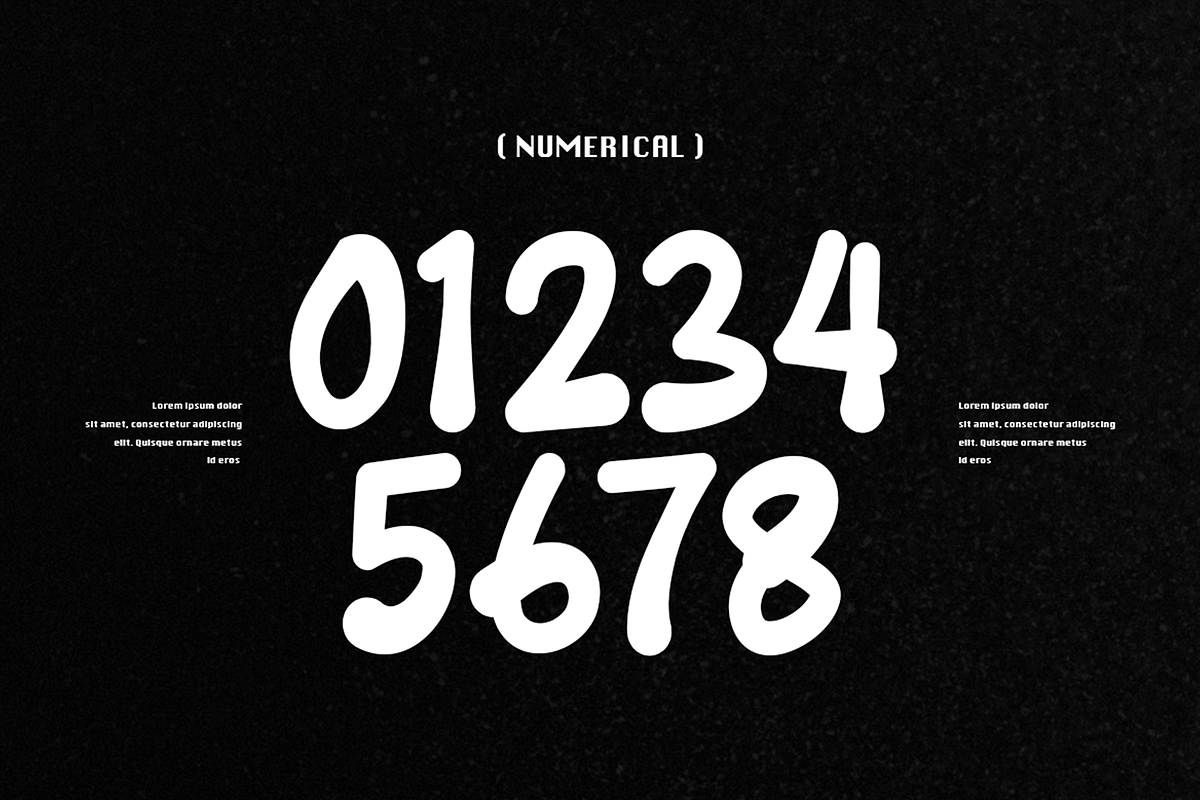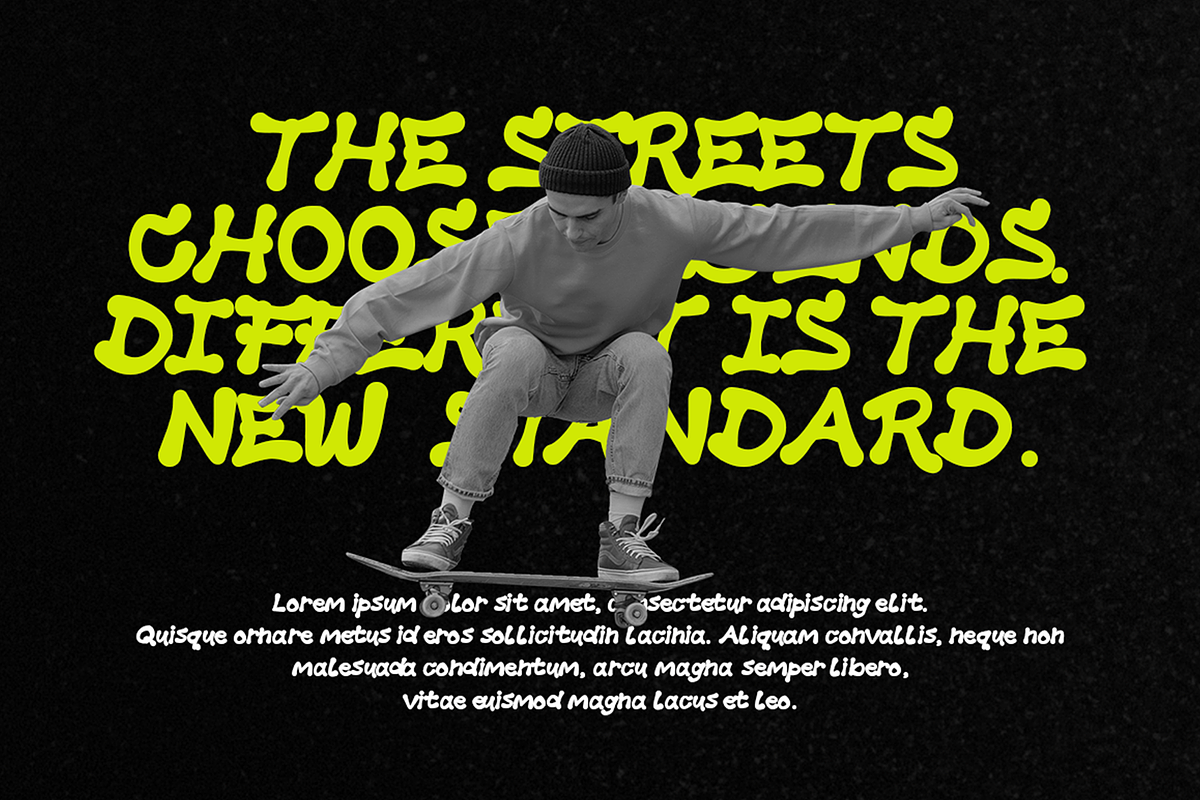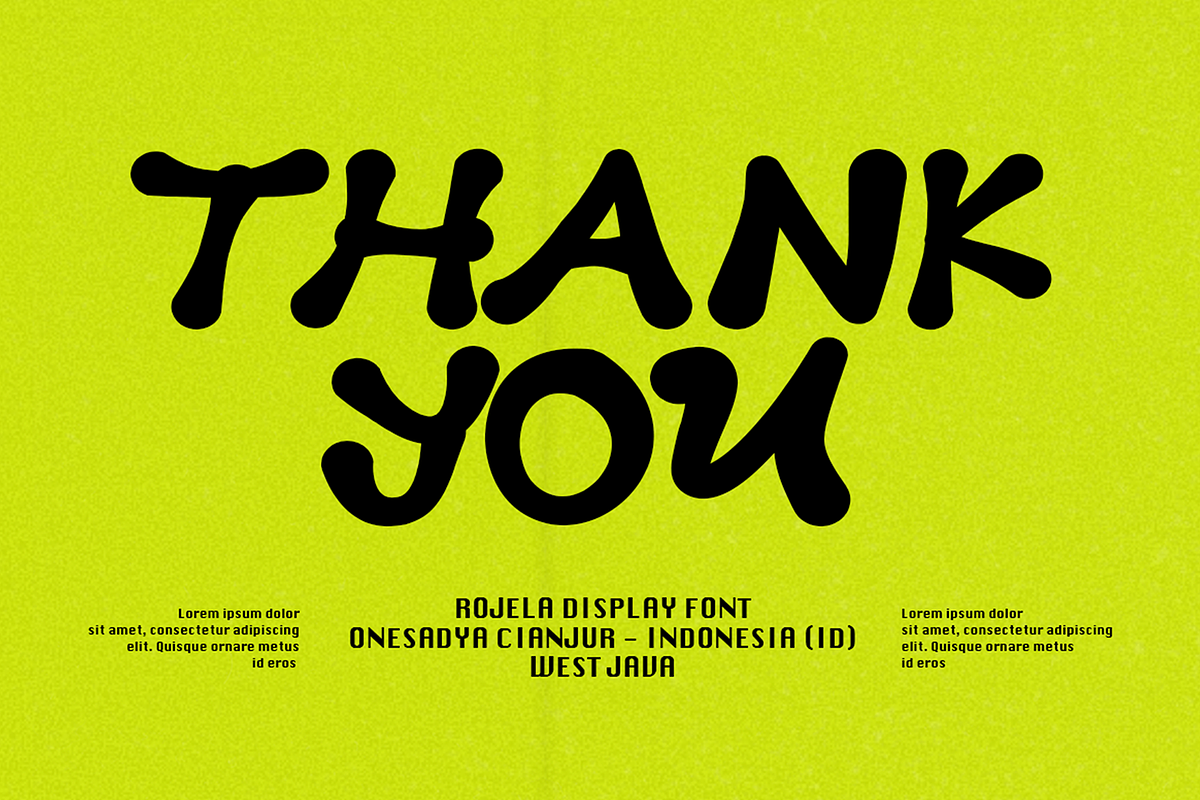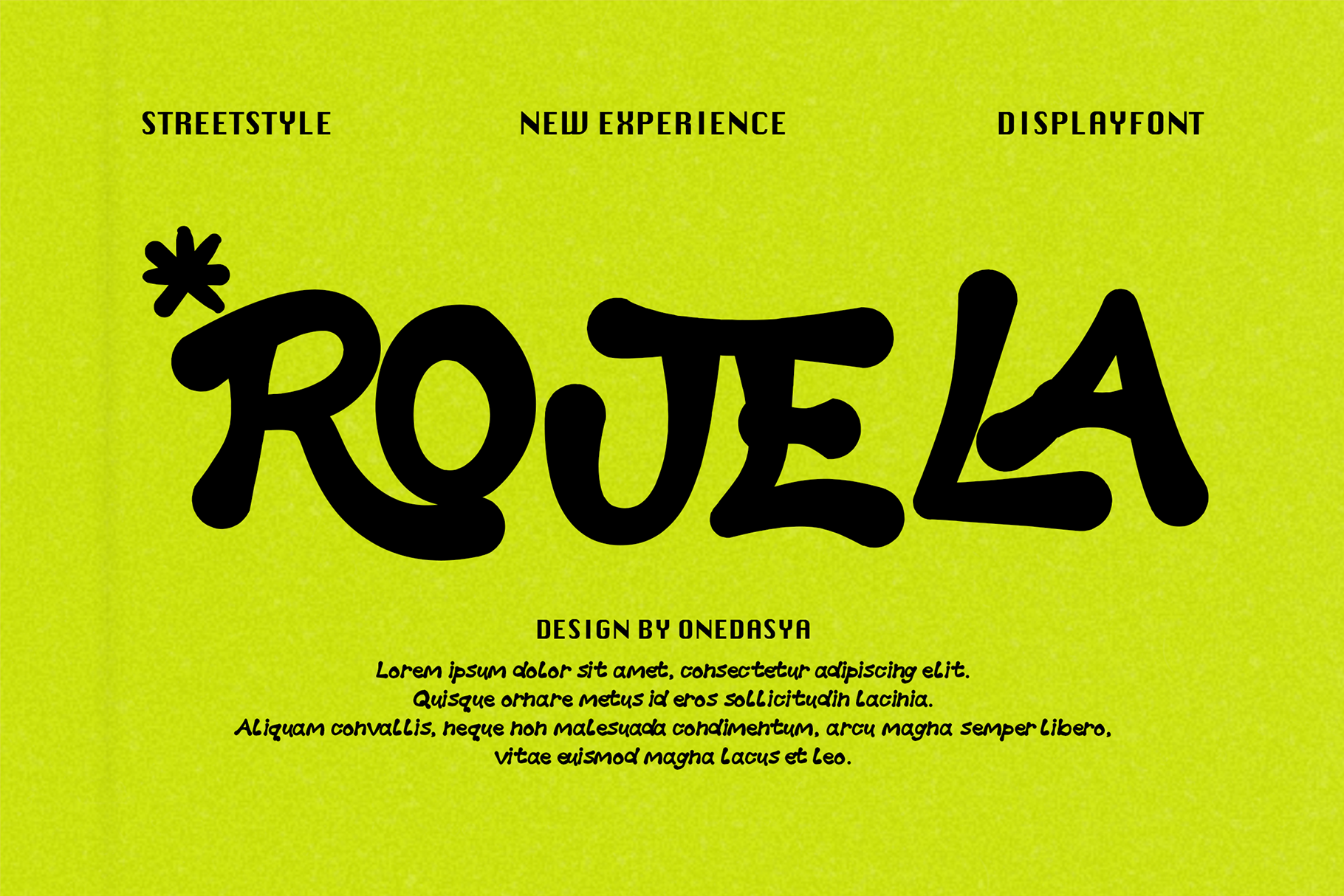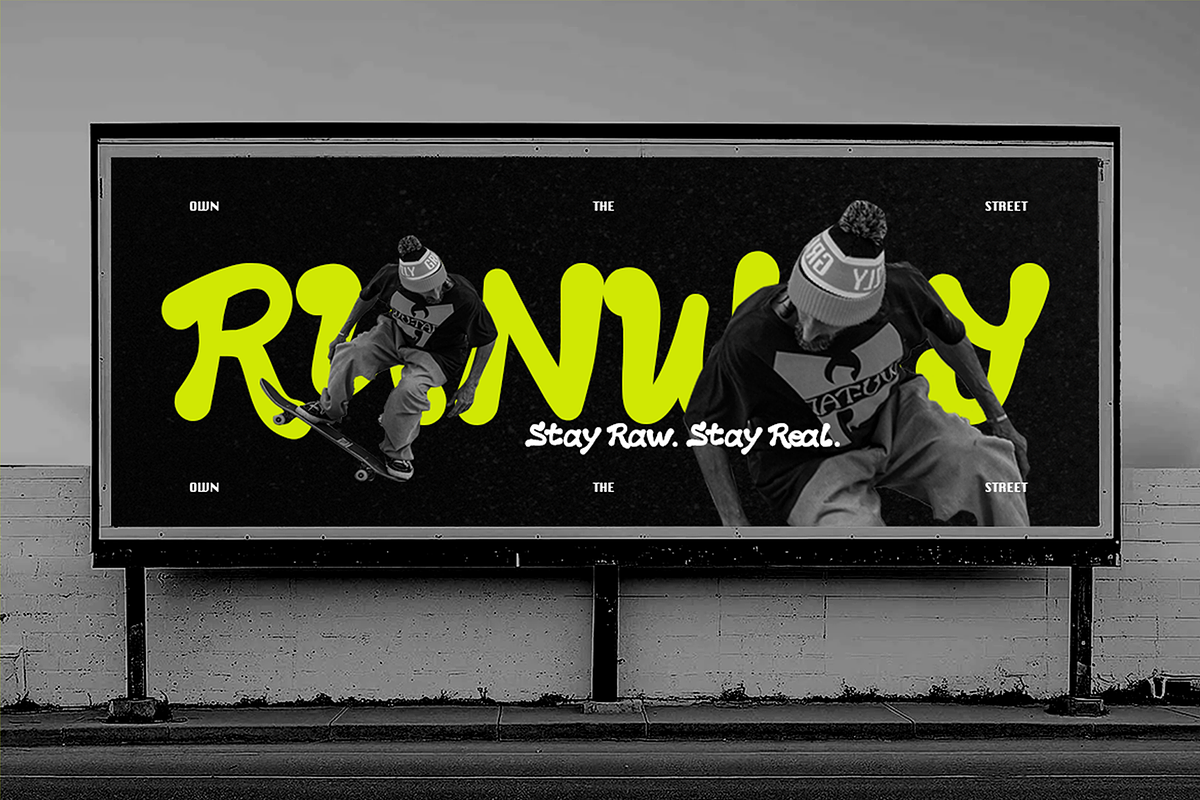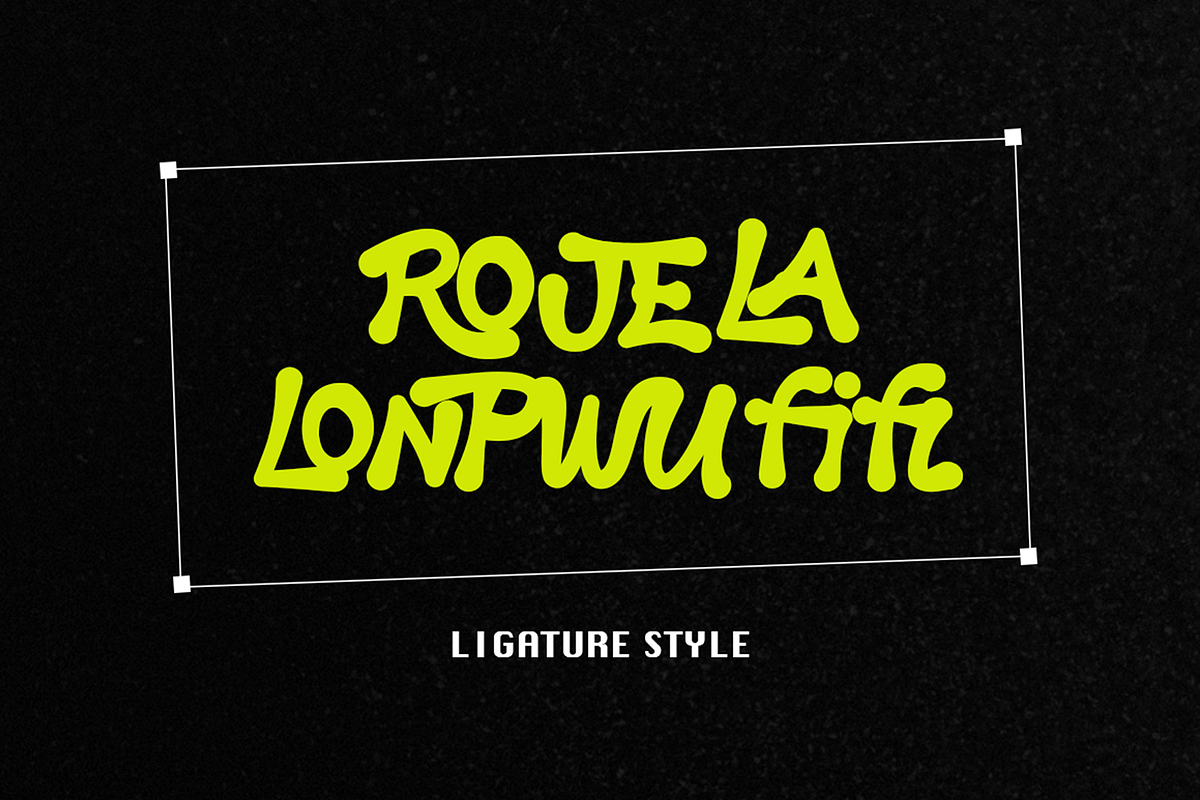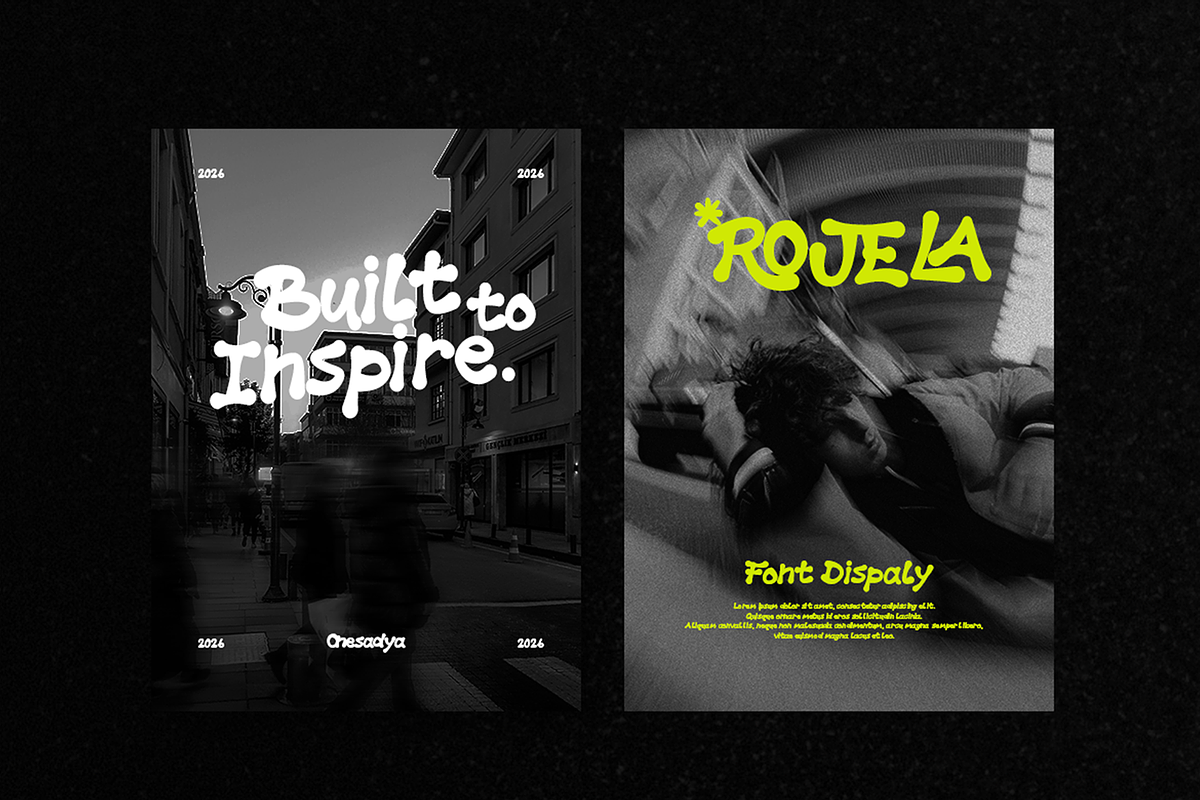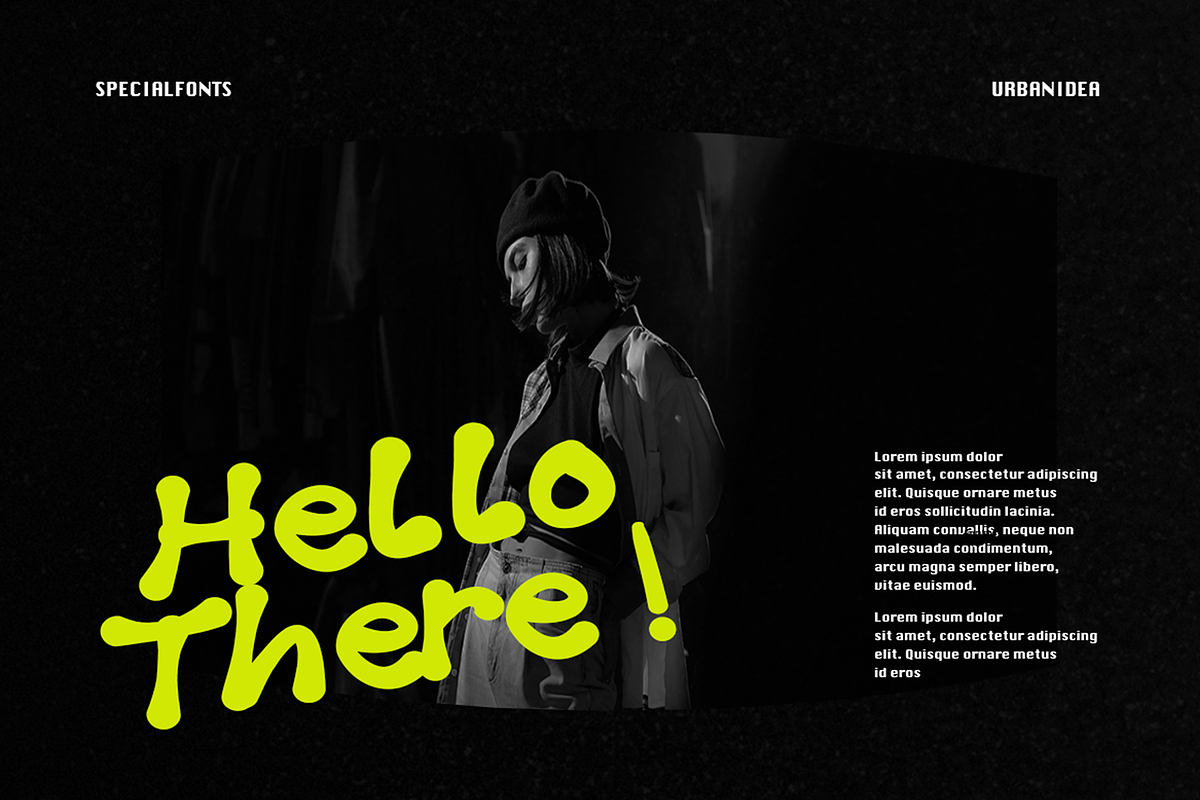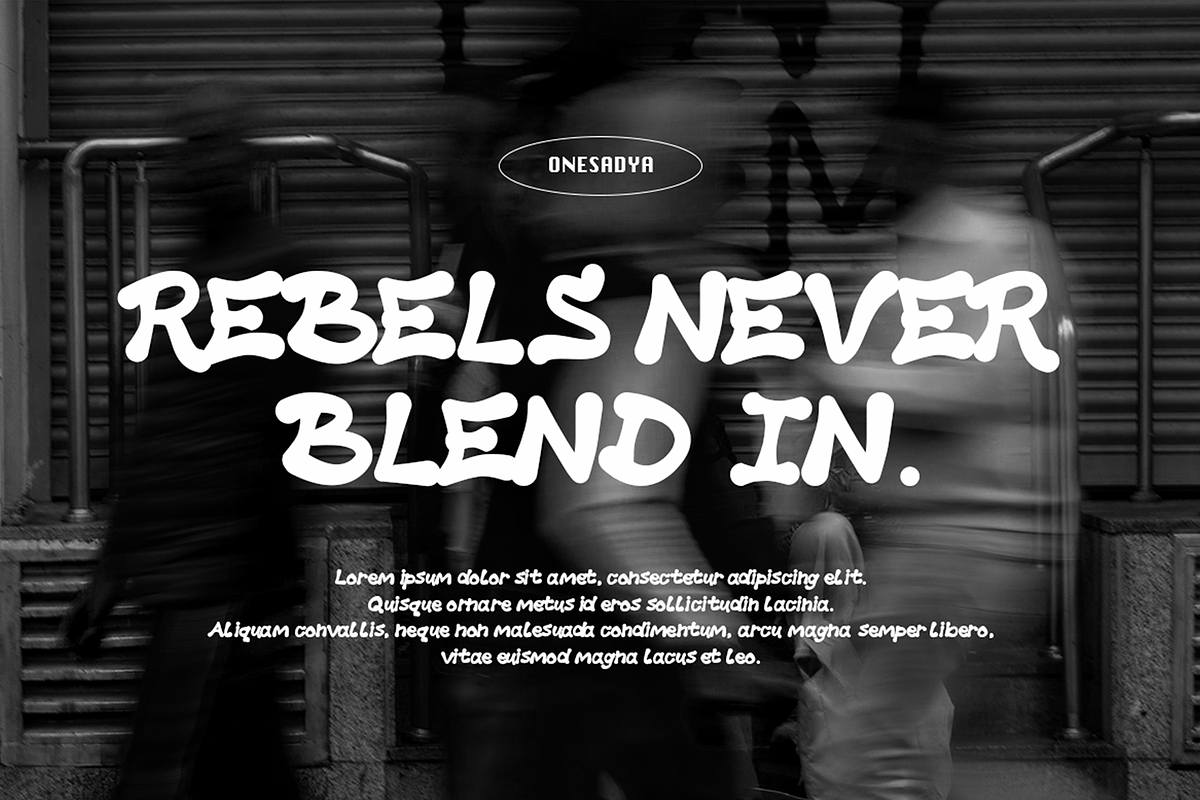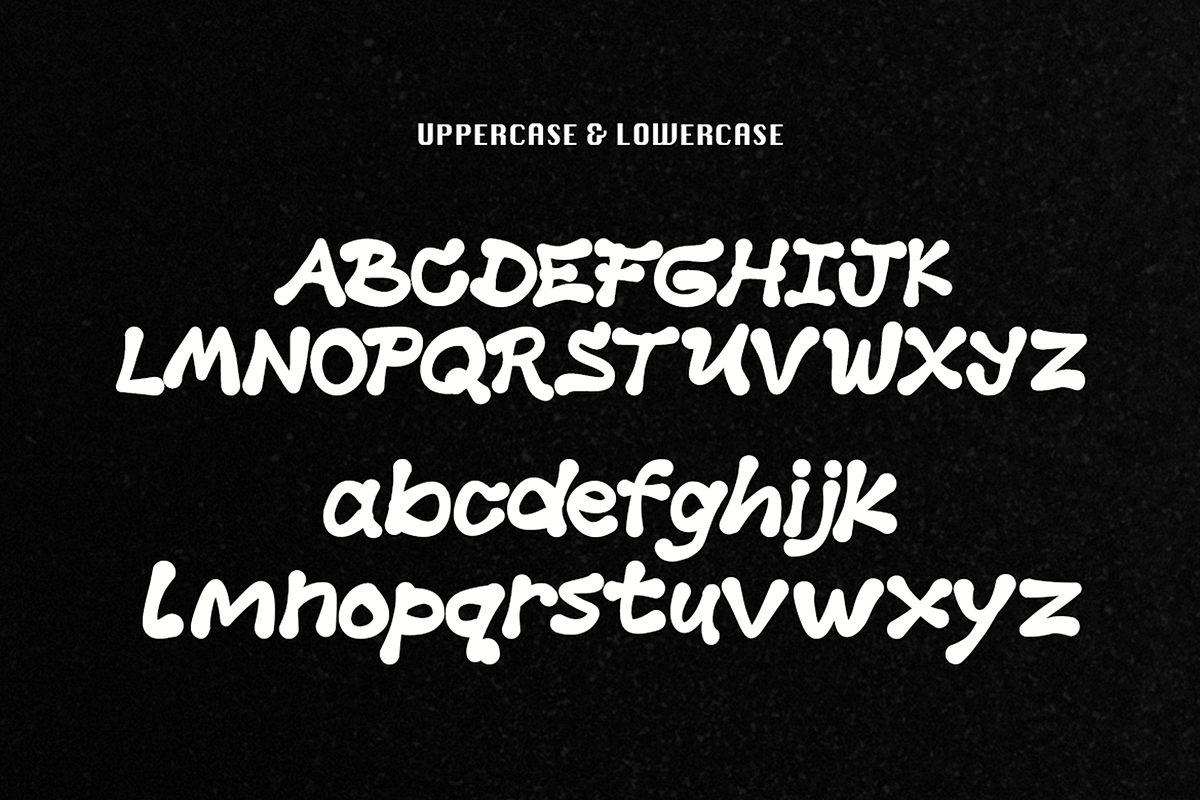
Rojela – Urban Display Font Typeface
Rojela – Urban Streetwear Display Font Typeface
Rojela is a bold and expressive Urban Streetwear Display Font inspired by the raw energy of street culture, graffiti, urban fashion, and contemporary city life. With its strong character, edgy details, and confident appearance, Rojela is designed to make every word stand out.
Perfect for creating eye-catching designs with a bold, rebellious, and modern streetwear aesthetic. Whether you're designing apparel, logos, posters, album covers, social media graphics, or branding projects, Rojela brings a powerful urban attitude to your work.
Streetwear & Fashion Branding
T-Shirt & Apparel Designs
Logo & Brand Identity
Posters & Flyers
Album & Music Artwork
Skateboard & Urban Culture Designs
Stickers & Merchandise
Packaging & Product Labels
Headlines & Display Typography
Rojela is made for designers who want to create a strong visual statement and capture the authentic spirit of urban street culture.